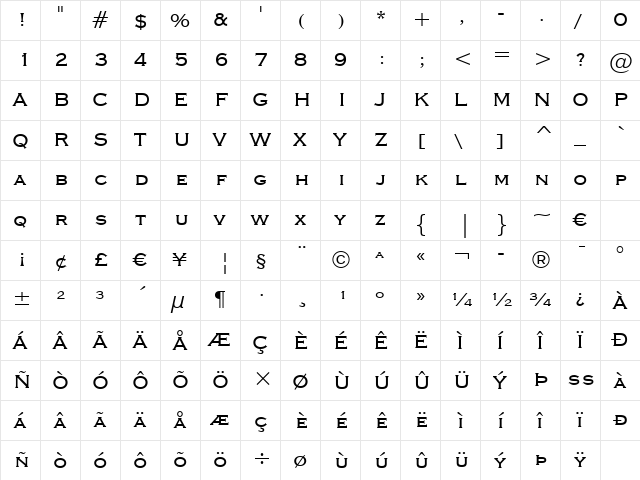
CopprplGoth BT Roman Font Preview
CopprplGoth BT Roman
CopprplGoth BT Roman Font Details
Design Context for CopprplGoth BT Typeface
CopprplGoth BT takes a measured approach to typography — its balanced proportions and neutral character make it a reliable workhorse for both digital and print work.